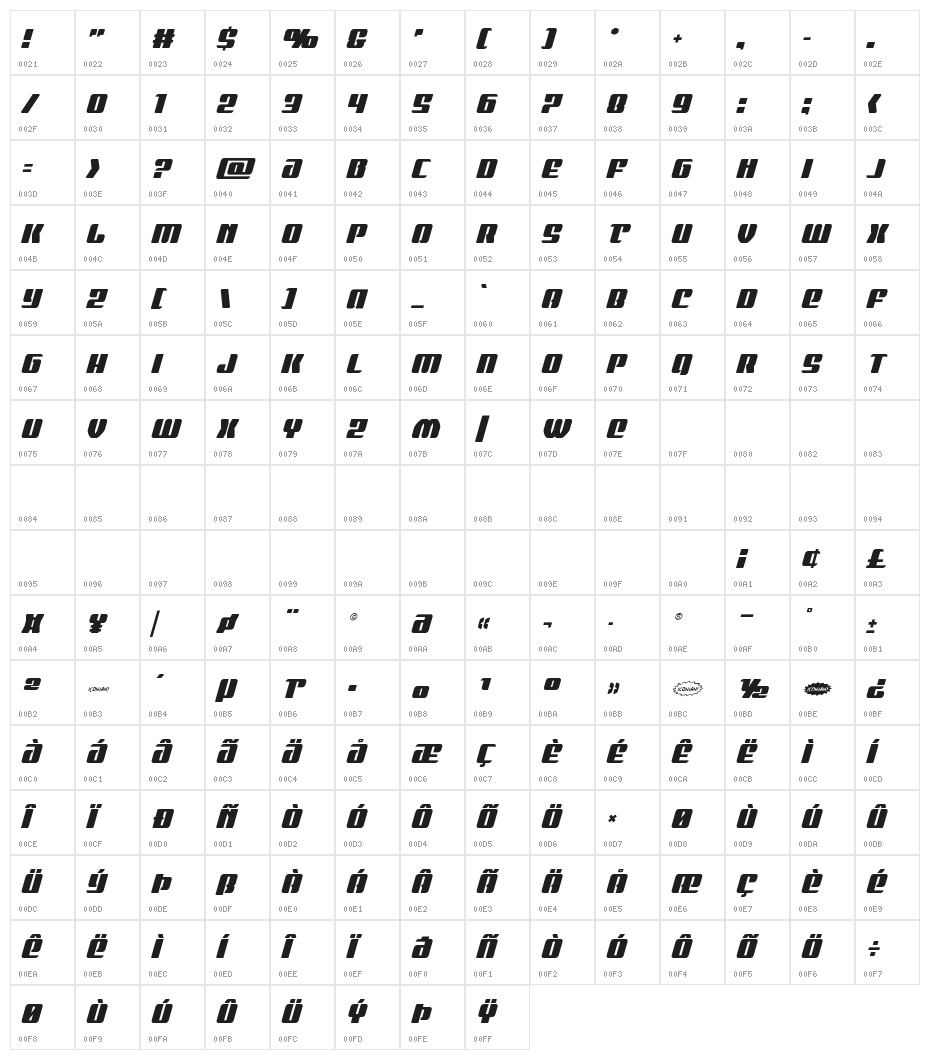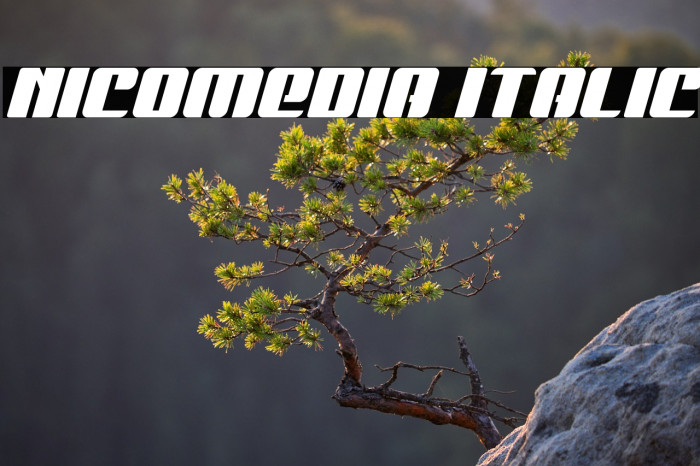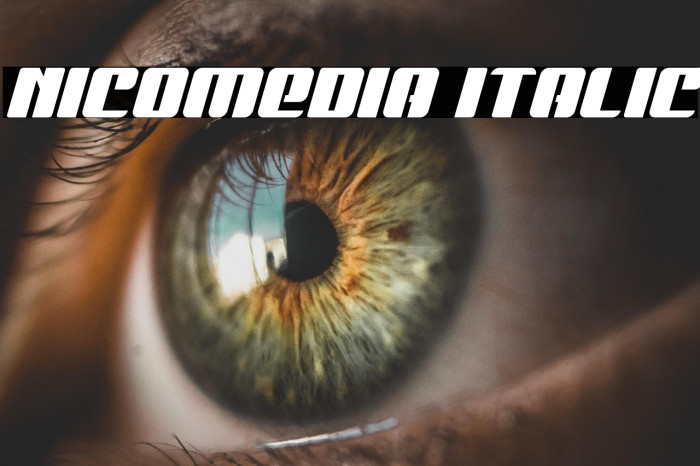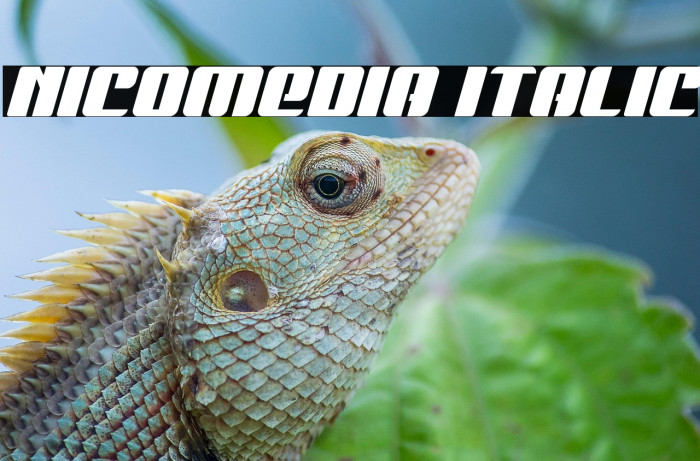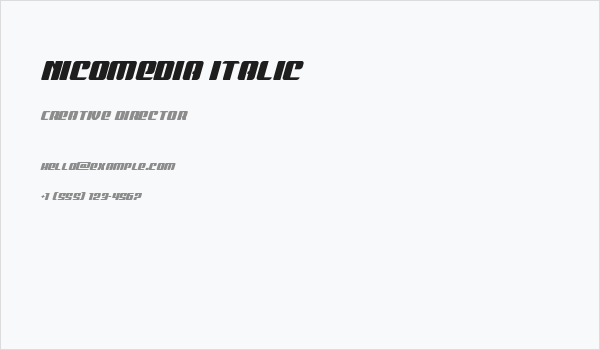
Nicomedia Italic Font
Nicomedia Italic Description
This font features a bold and dynamic style with a distinct italic slant, giving it a sense of movement and energy. The characters are wide and have a strong presence, making them highly visible and impactful. The strokes are thick and consistent, providing a uniform appearance across all characters. The design incorporates sharp angles and clean lines, contributing to a modern and futuristic aesthetic. The numbers and special characters maintain the same bold and italicized style, ensuring consistency throughout the typeface.
| Proposed Projects | Ideal for sports branding, dynamic posters, video game titles, and futuristic designs. |